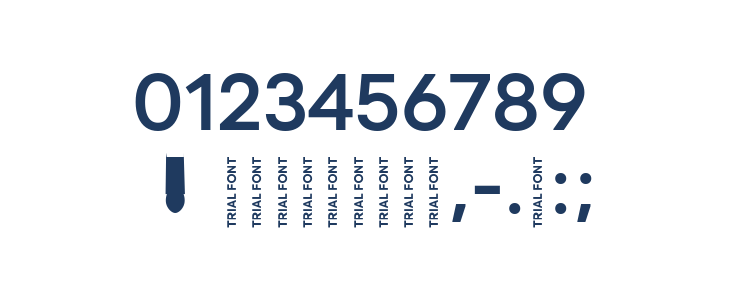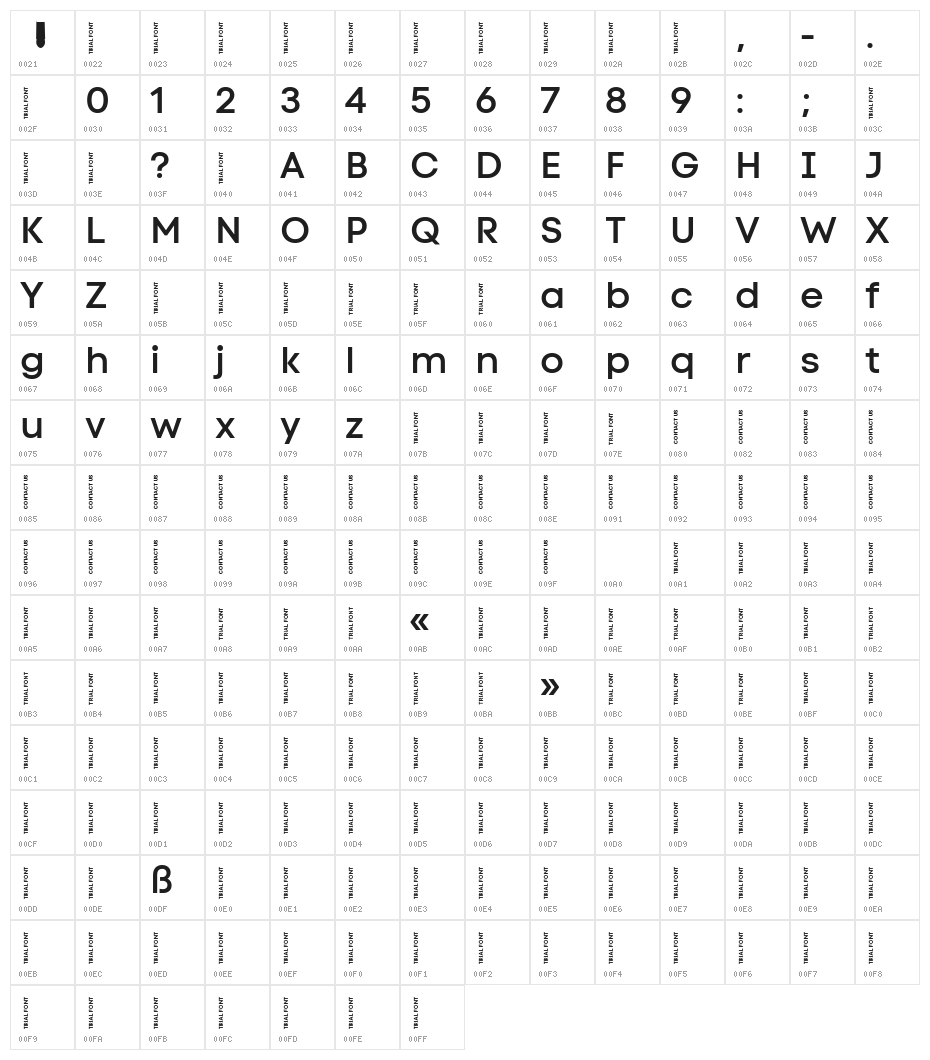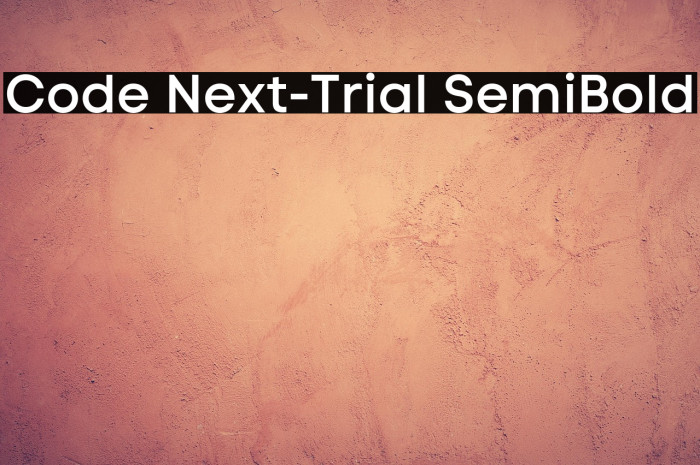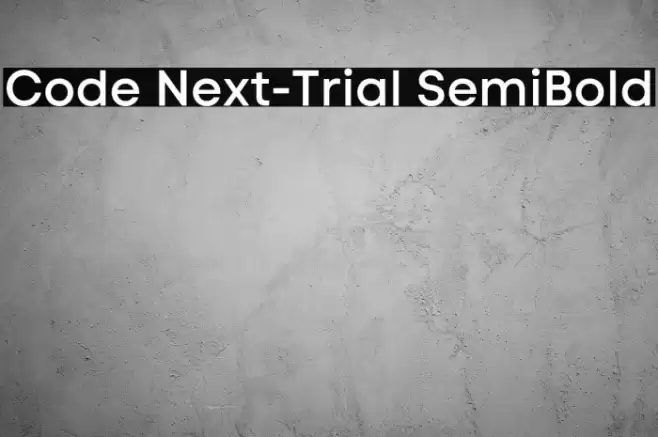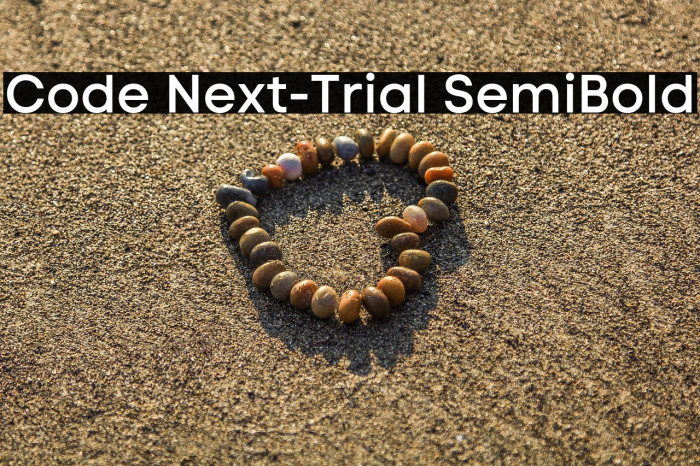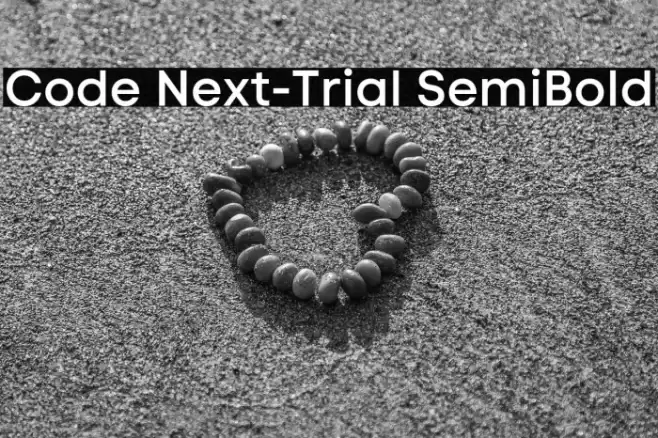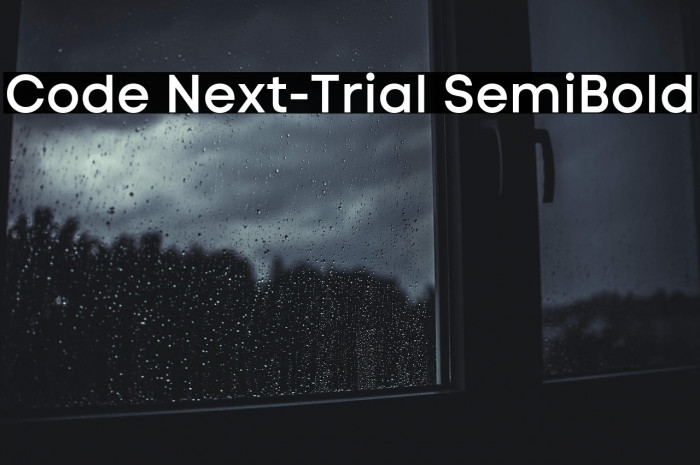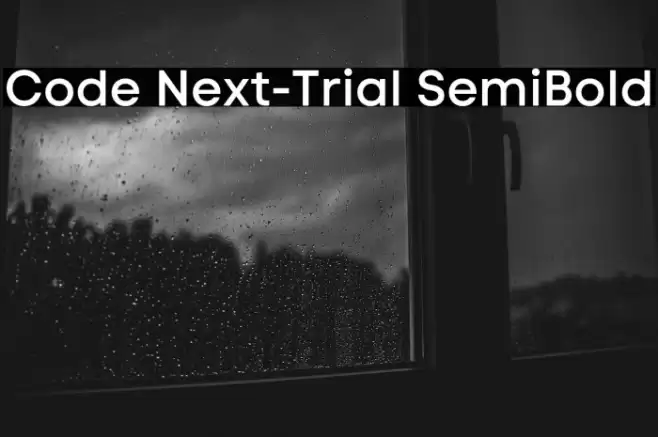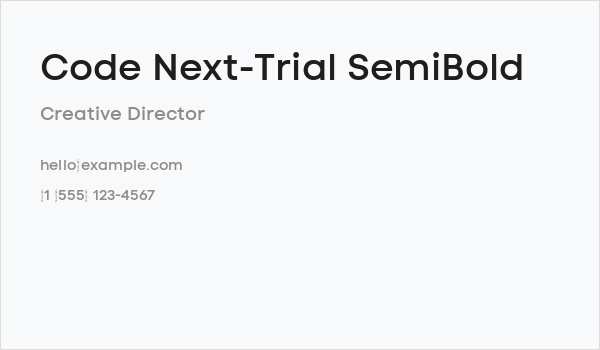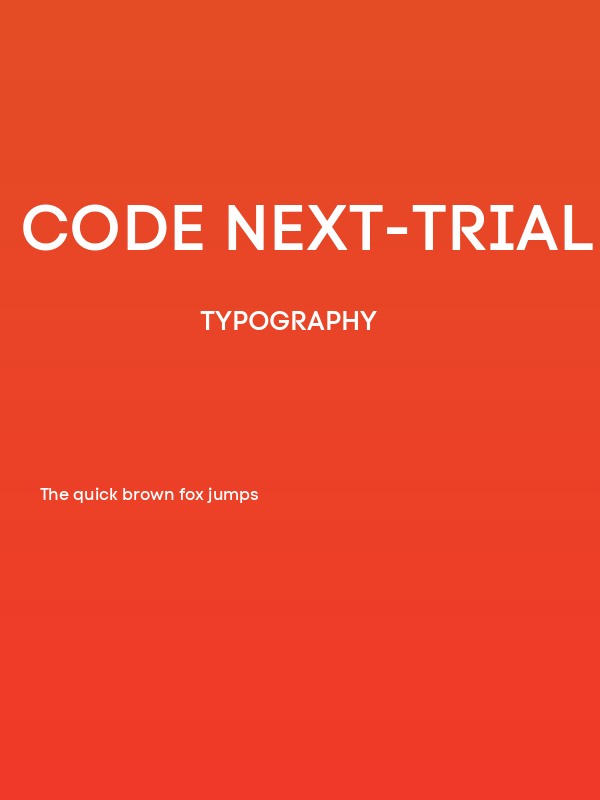
Code Next-Trial SemiBold Font
Code Next-Trial SemiBold Description
This font exhibits a clean and modern sans-serif style, characterized by its geometric shapes and uniform stroke widths. The uppercase and lowercase letters maintain a consistent height and width, providing a balanced and harmonious appearance. The numerals are clear and legible, making them suitable for various applications. The special characters are well-defined, ensuring versatility in design projects. Overall, this font's simplicity and clarity make it an excellent choice for contemporary design needs.